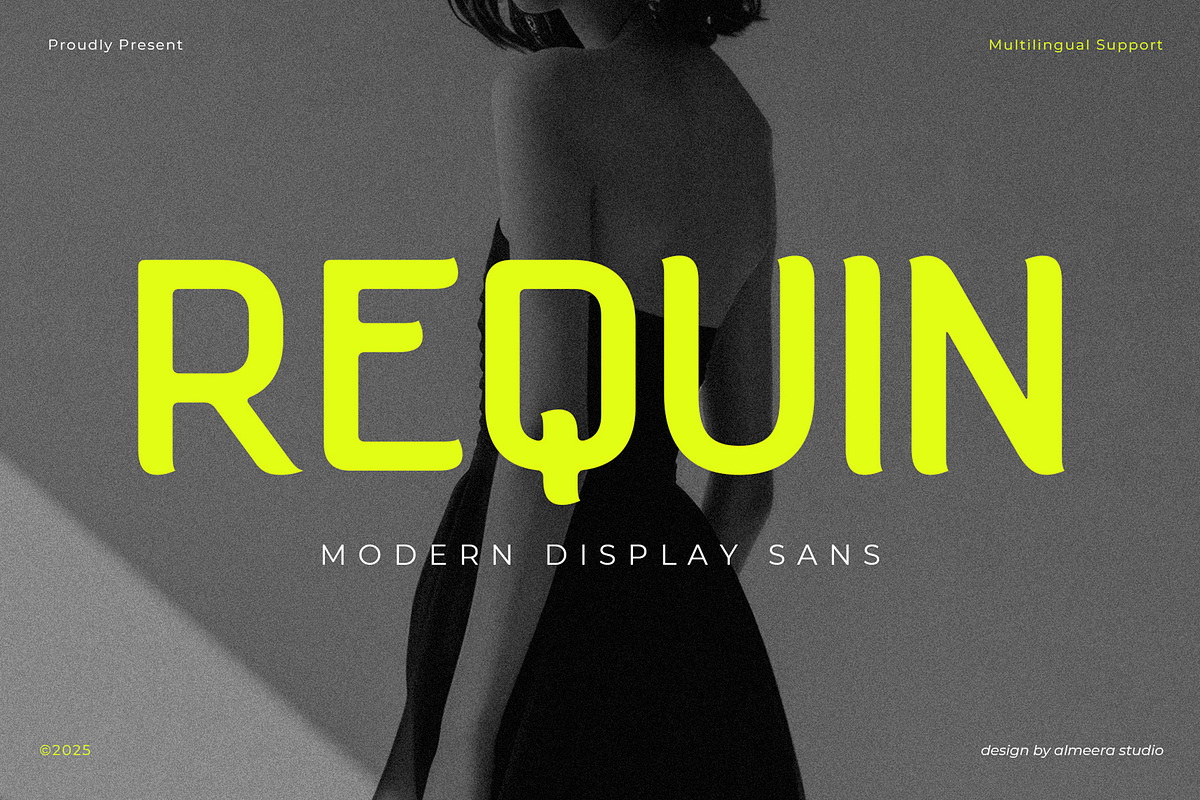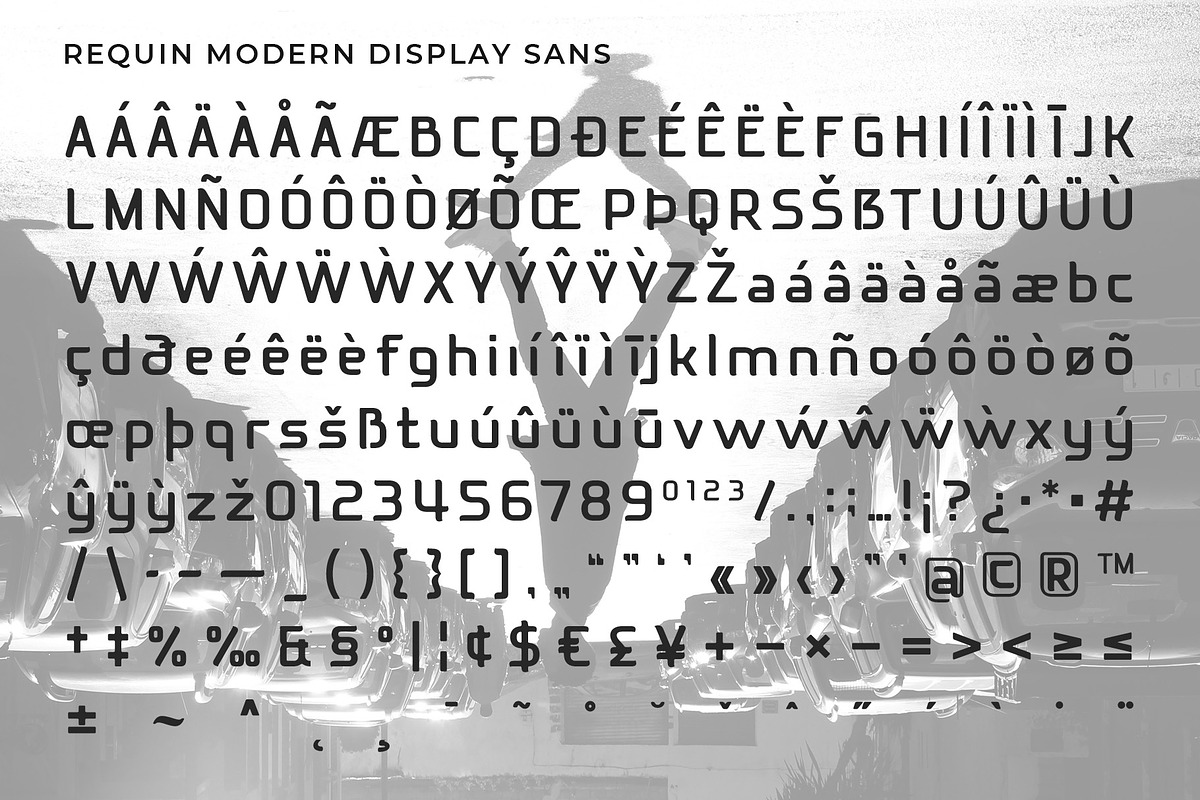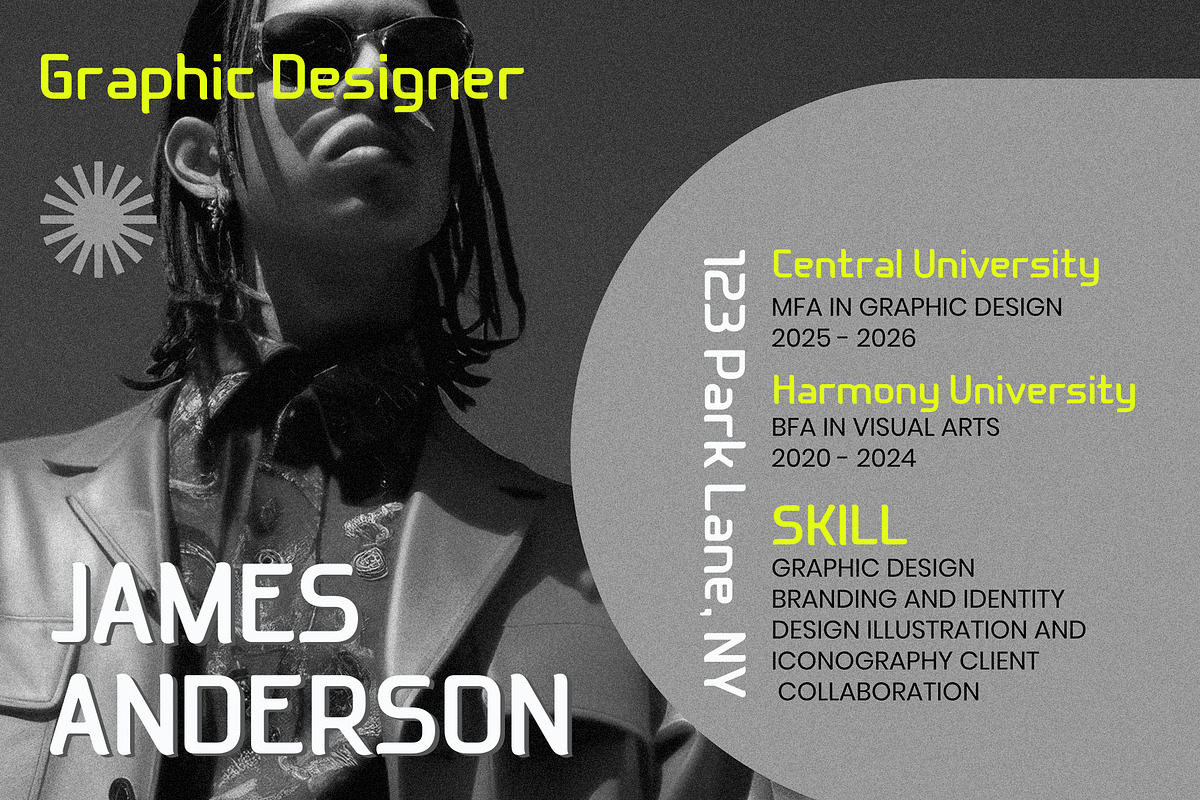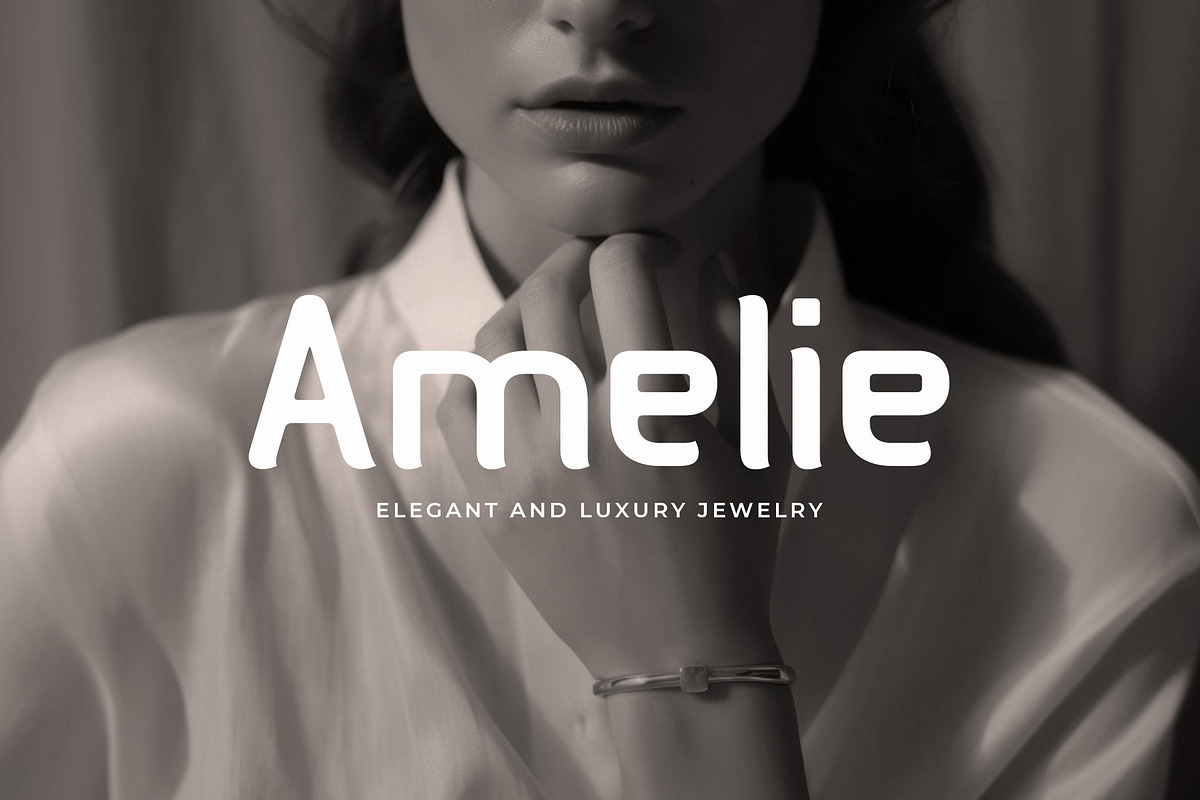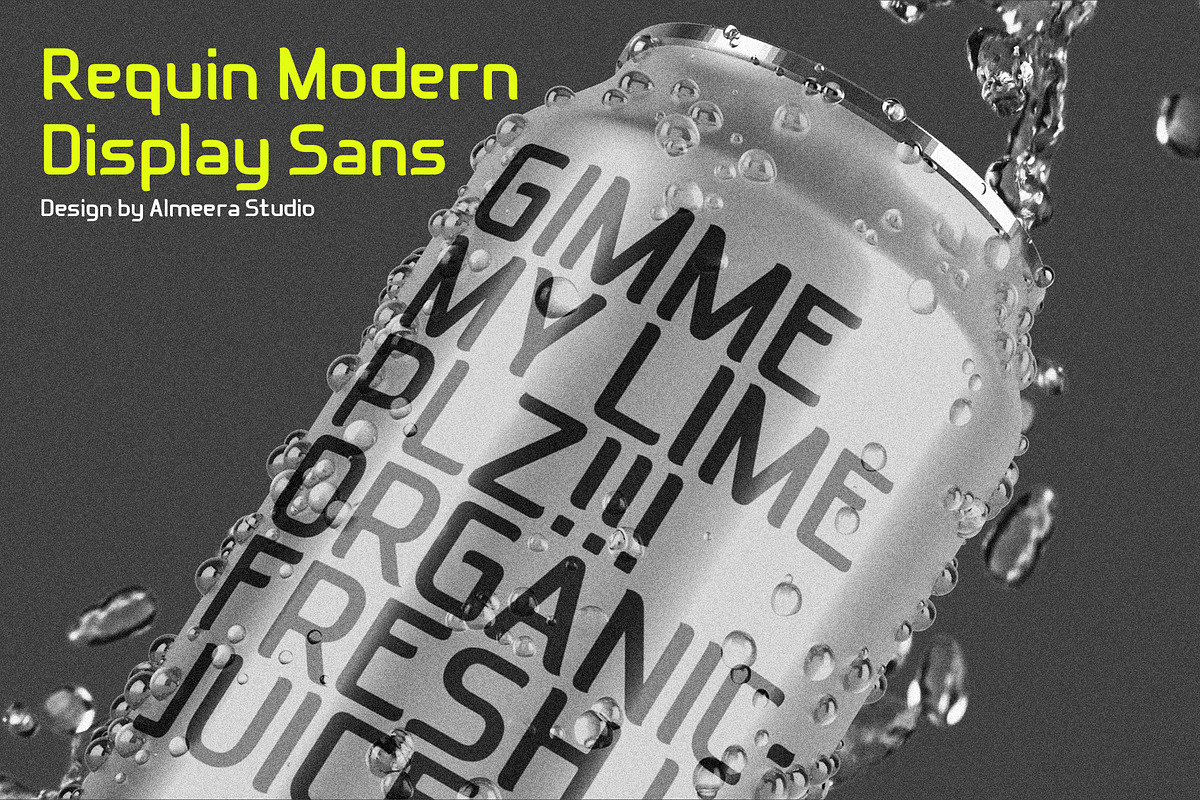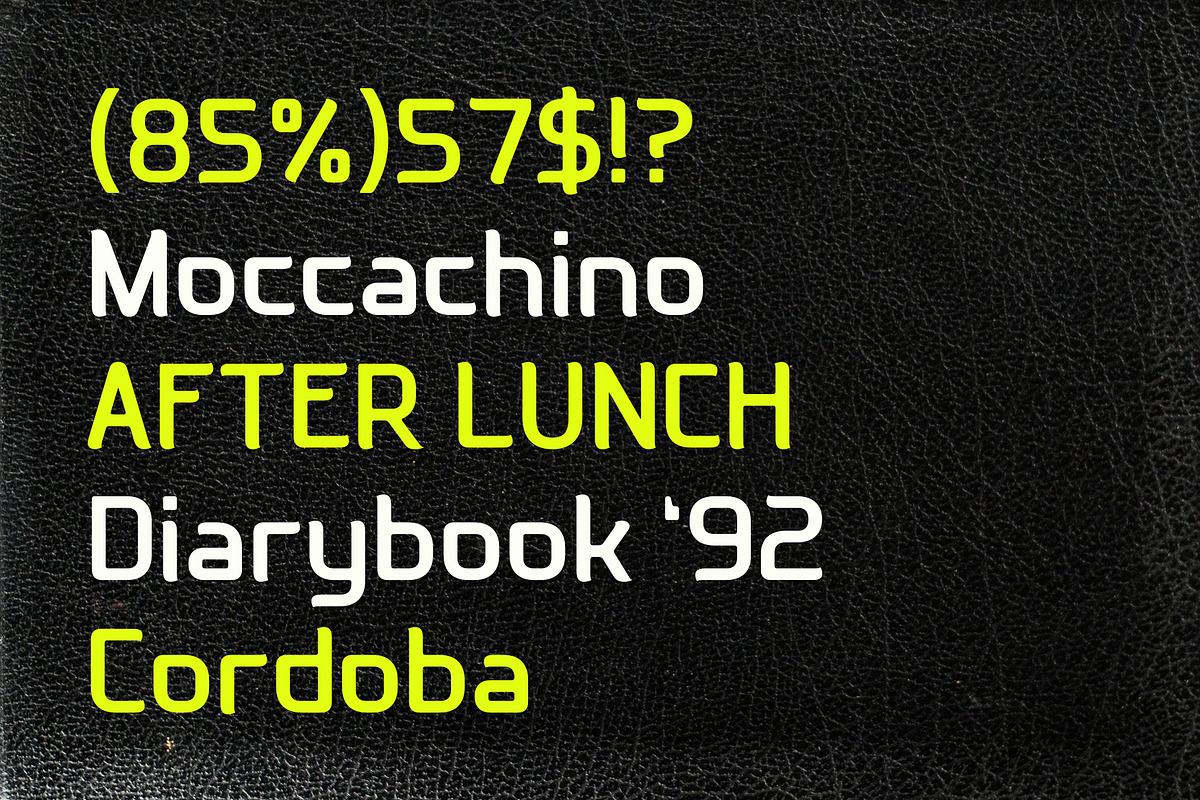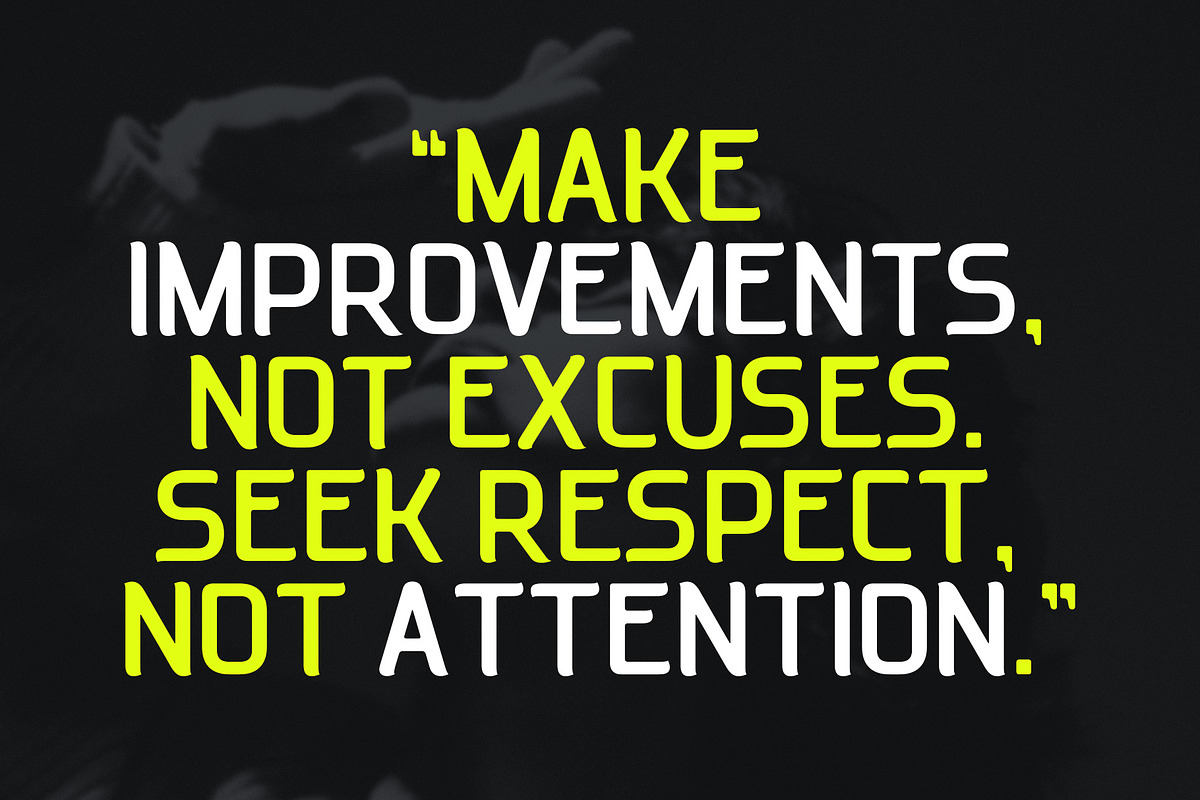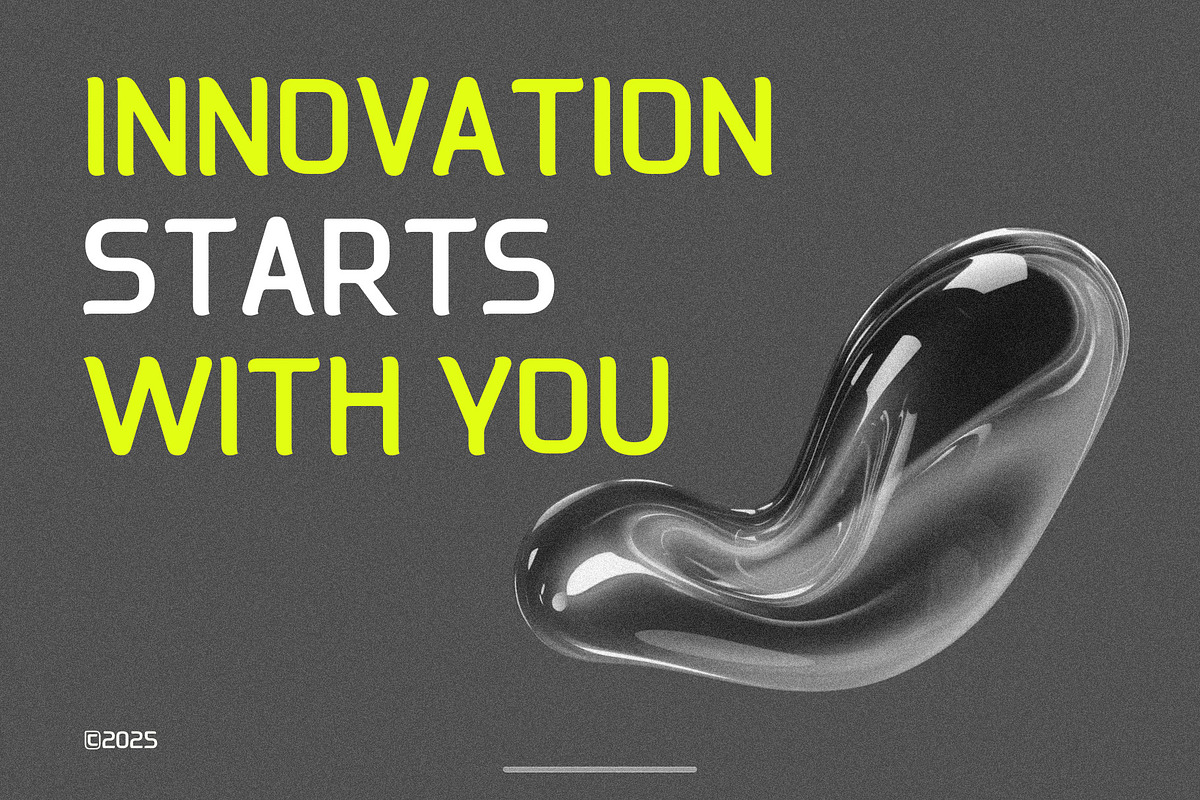
Requin - Modern Display Sans
Introducing Requin - Modern display sans font. Requin is a modern display san serif font, This type of font is very suitable for your various needs such as branding projects, logos, social media posts, advertisements, labels, product packaging, photography, wedding designs, watermarks, invitation product designs, stationery, and any project.